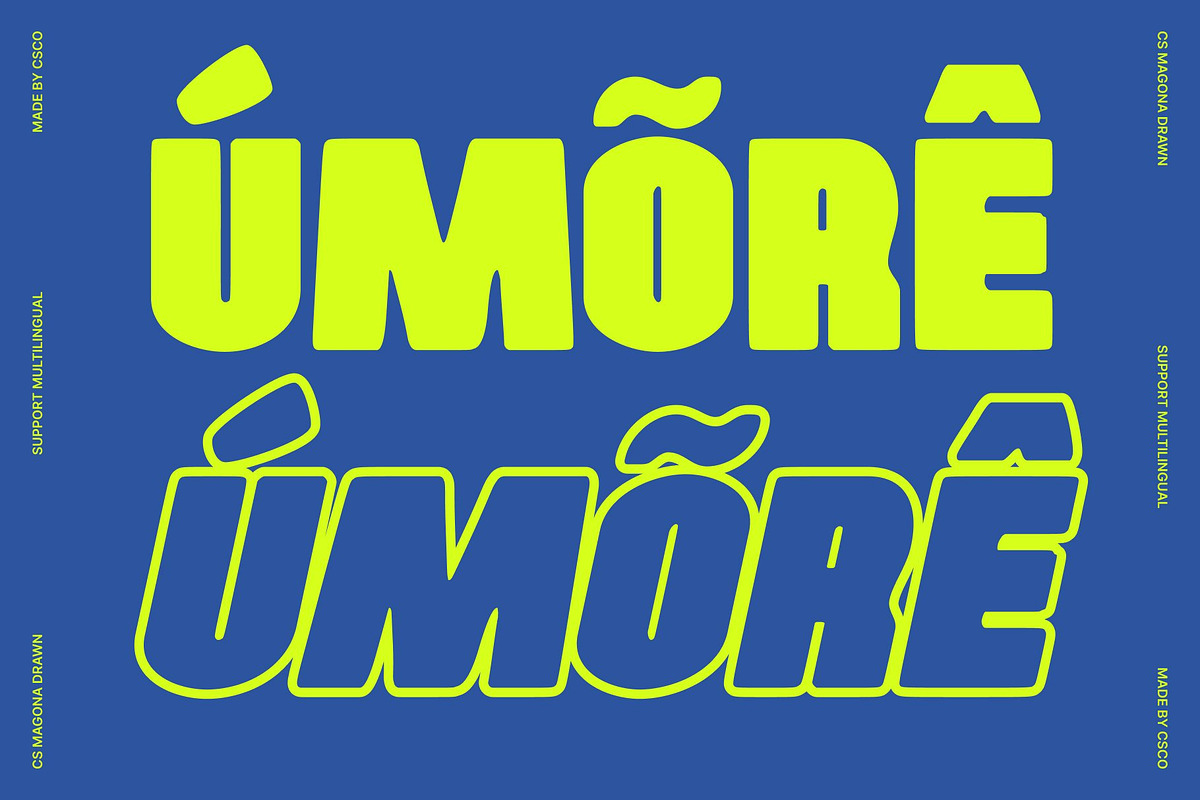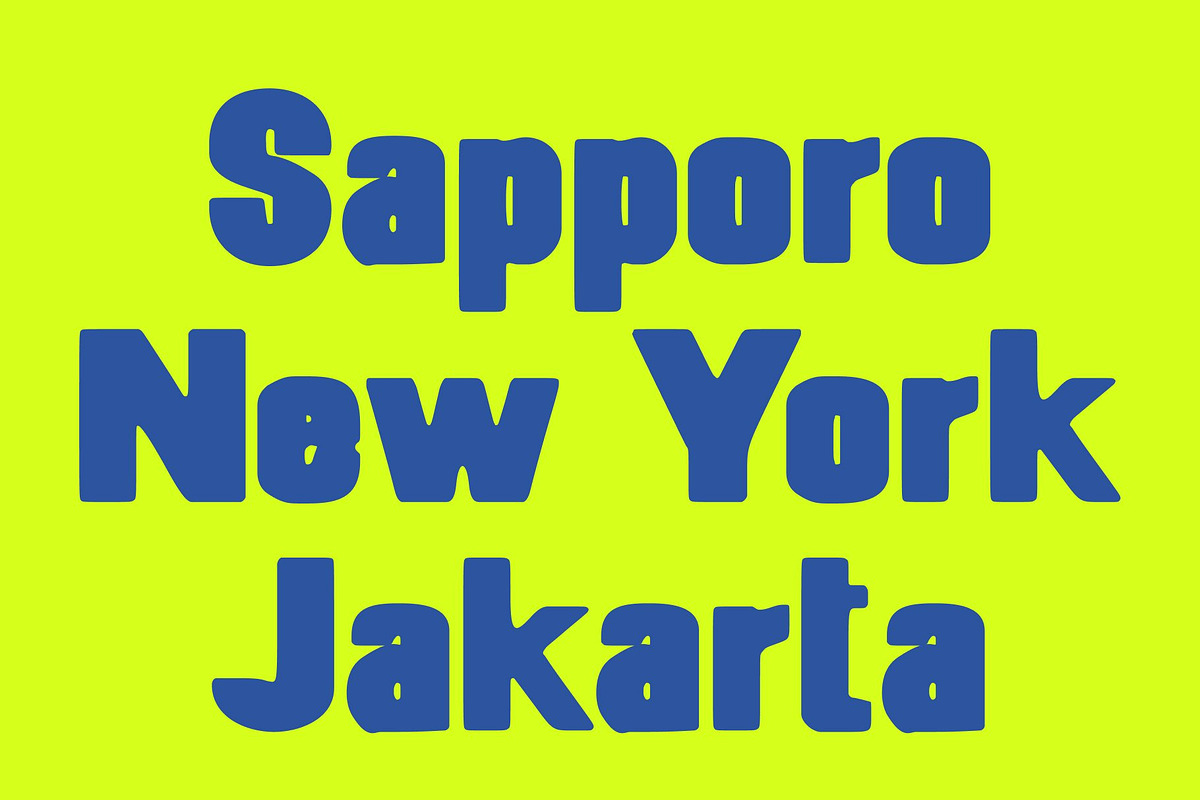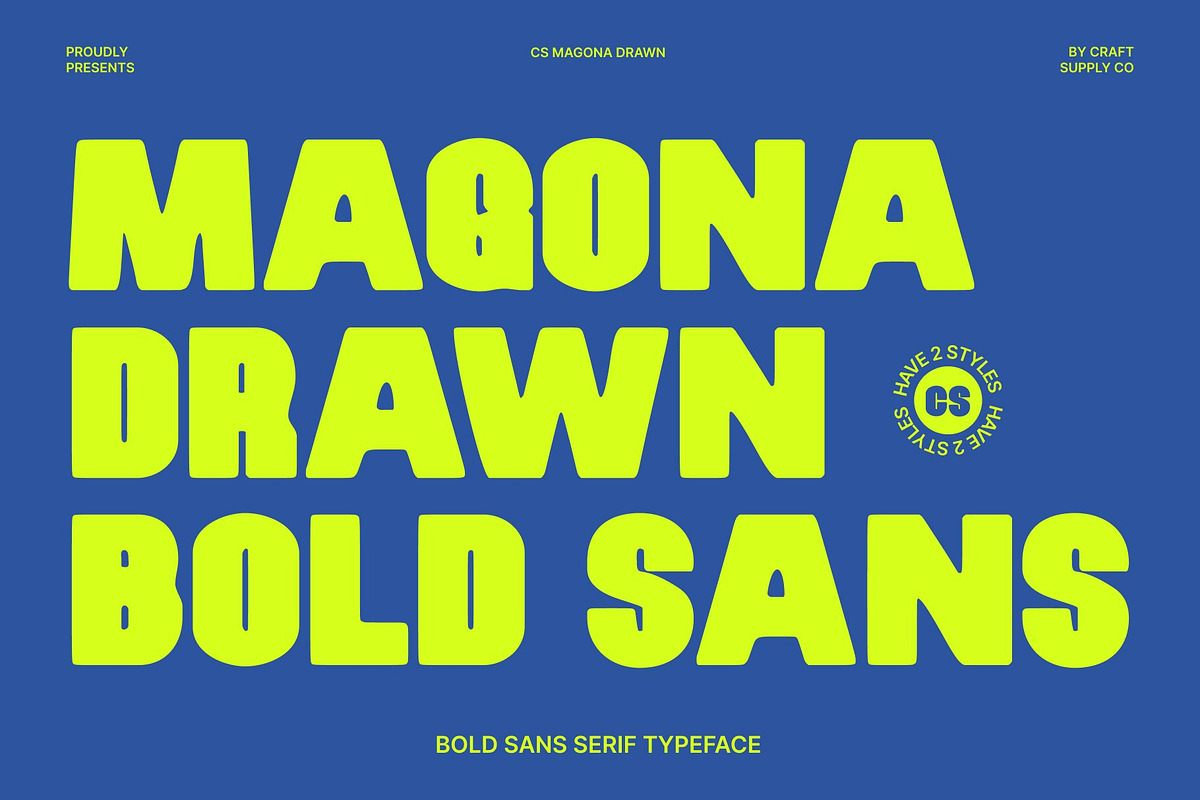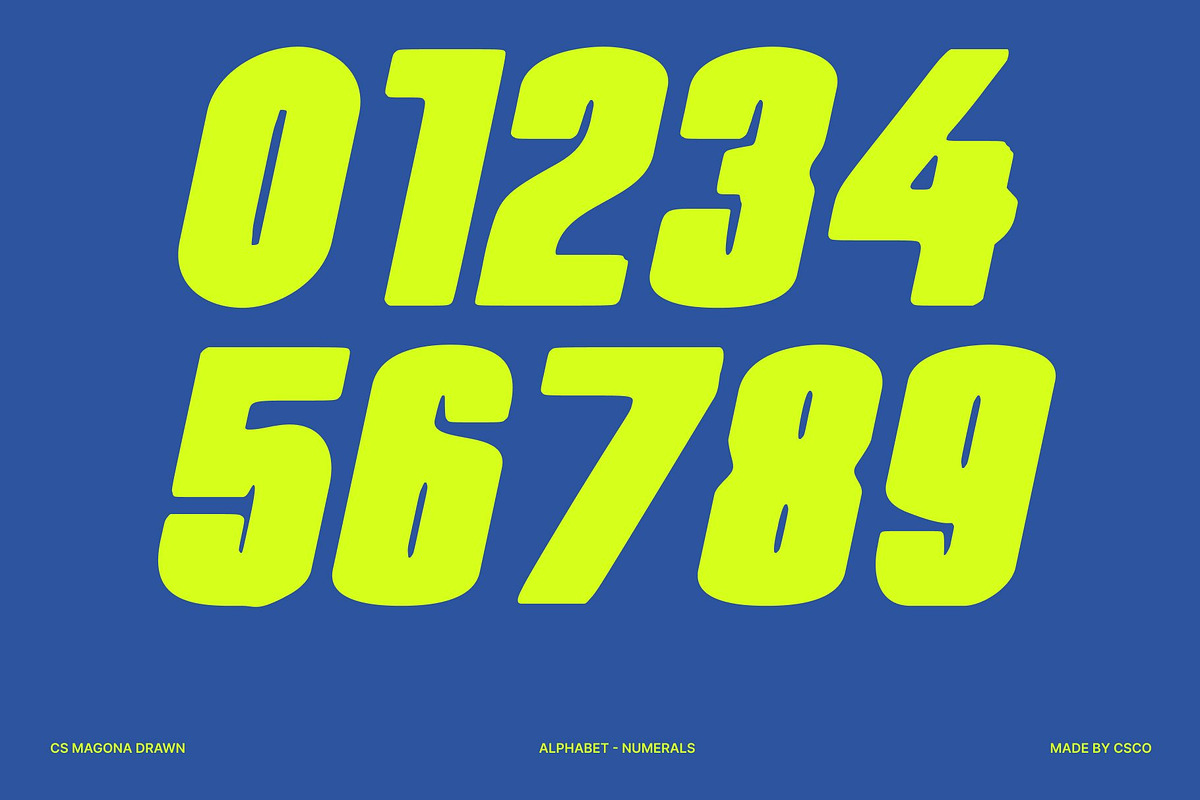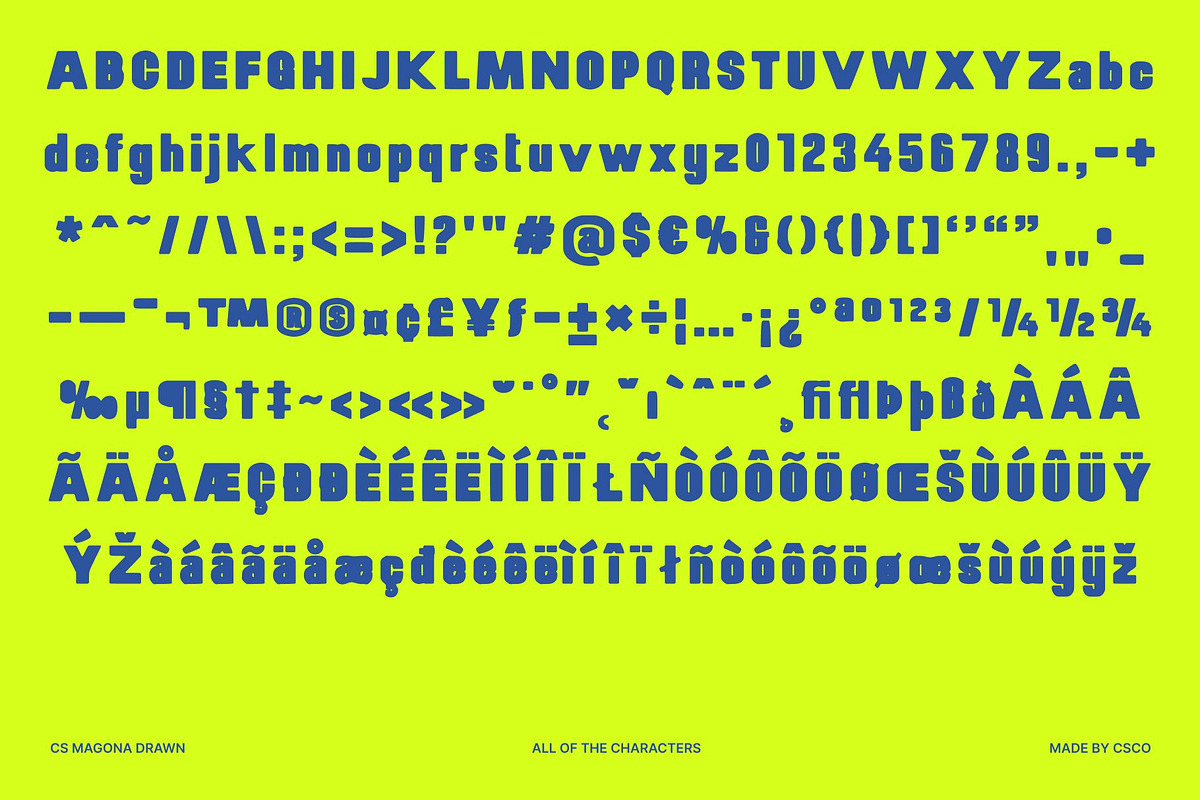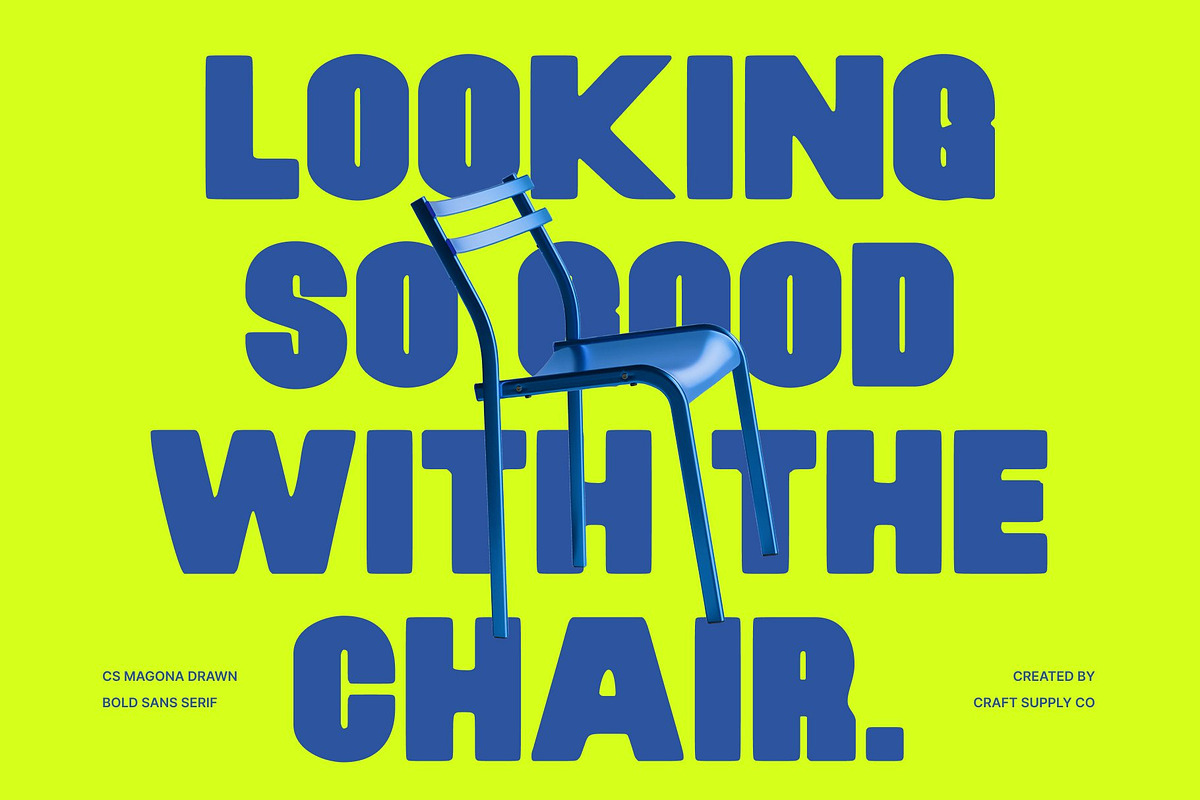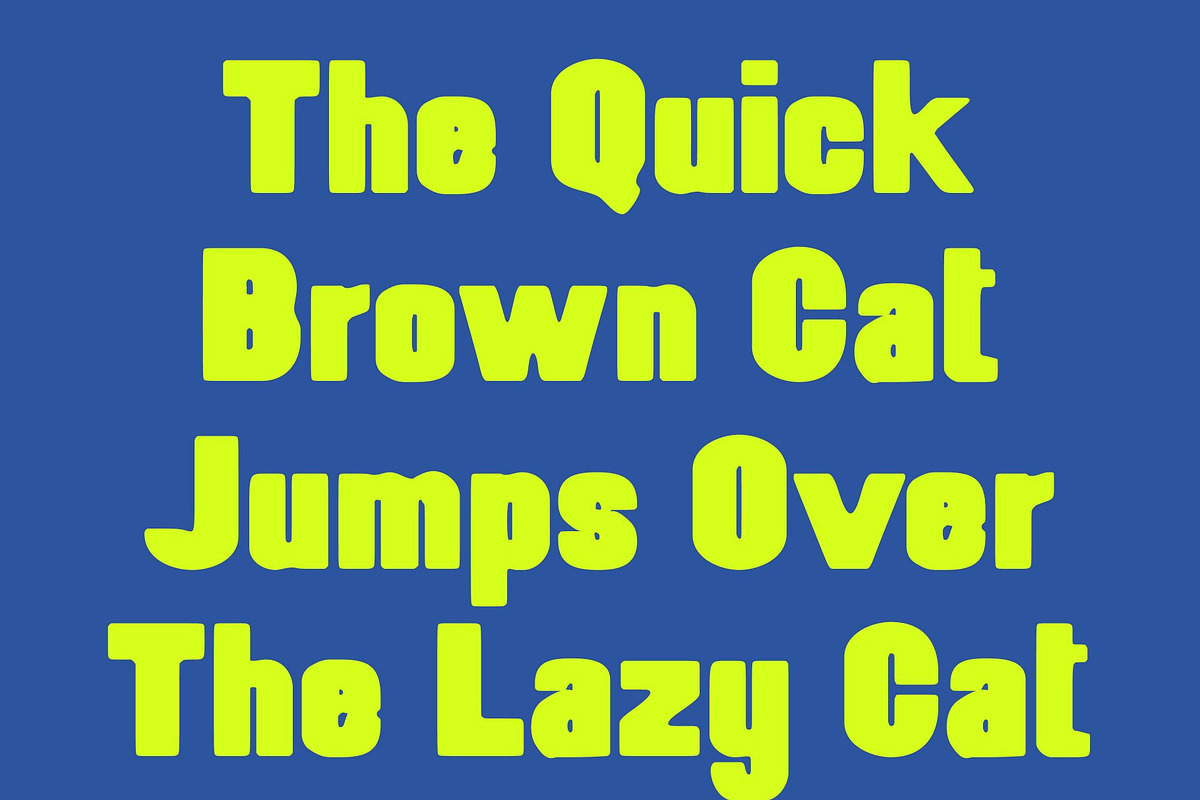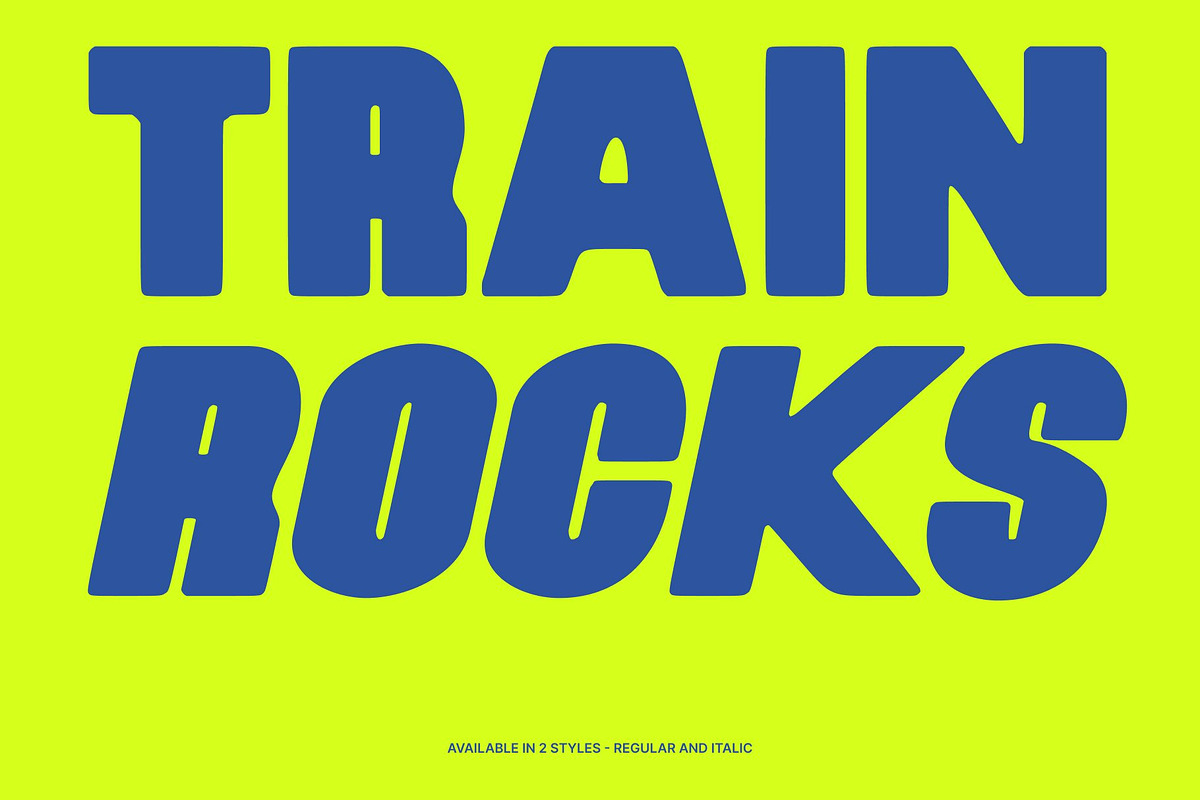
CS Magona Drawn
CS Magona Drawn – Bold Energy for Modern Design
Striking Sans Serif with Hand-Drawn Power This is a bold sans serif display font created to command attention with confidence. Its strong modern letterforms are enhanced by a subtle drawn effect, giving each character a unique texture and organic edge. This handcrafted nuance adds energy and personality, transforming clean geometry into expressive, eye-catching typography.
Modern Shapes with Expressive Texture Built on solid geometric foundations, this font features clean lines and dynamic proportions that feel contemporary and assertive. The drawn texture introduces slight irregularities, softening the structure and adding visual interest. This balance between precision and imperfection results in a typeface that feels modern, lively, and full of character.
Perfect for Headlines, Posters, and Branding Designed for high-impact use, this font excels in headlines, posters, logos, and modern branding systems. Its bold weight ensures excellent readability, while the hand-drawn details make designs feel more human and engaging. It’s an ideal choice for projects that demand strength without losing creative expression.
Contemporary Style with Lasting Appeal This font delivers a modern aesthetic that goes beyond trends. Its versatile structure adapts seamlessly across digital and print media, while the drawn effect adds timeless artistic value. For designers seeking confident, vibrant, and distinctive typography, this font offers a powerful blend of modern sophistication and handcrafted energy.
- CS Magona Drawn Regular
- CS Magona Drawn Italic